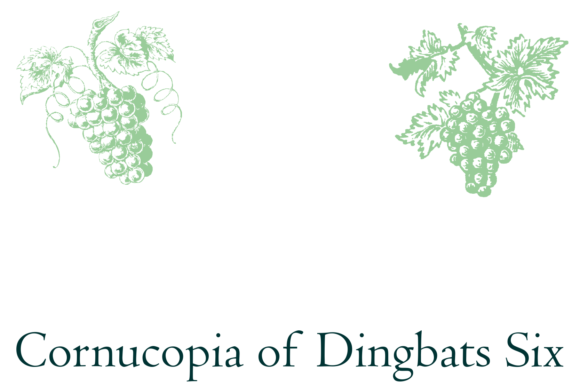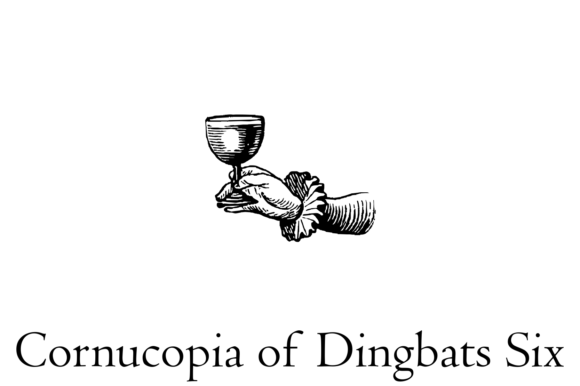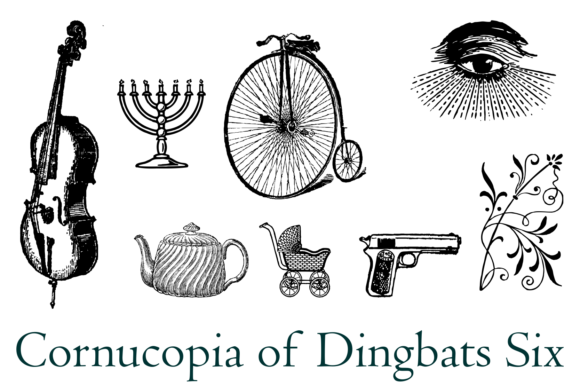
About Cornucopia of Dingbats Six Font
The Cornucopia of Dingbats Six is a captivating collection that combines classical vintage dingbats and ornaments, offering a wealth of creative possibilities. With its carefully curated selection of symbols, this collection allows you to infuse your designs with a timeless charm and elegance reminiscent of the past.
If you are a fan of vintage aesthetics or if you want to add a touch of classical elegance to your projects, the Cornucopia of Dingbats Six is a treasure trove of inspiration. Each dingbat and ornament within the collection has been meticulously crafted to reflect the artistic styles and motifs that were popular in bygone eras.
These classical vintage dingbats and ornaments can be seamlessly integrated into a wide range of design projects. Whether you’re working on invitations, stationery, book covers, or even branding materials, these symbols will add a touch of sophistication and visual appeal to your work.
Imagine using these dingbats to embellish typography, create borders or frames, or even as standalone decorative elements in your designs. The Cornucopia of Dingbats Six offers a diverse array of motifs, such as filigree patterns, intricate flourishes, vintage emblems, and ornate frames, allowing you to bring a sense of richness and historical significance to your creations.
The versatility of this collection extends beyond its use in digital designs. These dingbats and ornaments can also be utilized in traditional crafts, such as scrapbooking, card-making, or even embroidery. Whether you’re incorporating them into a digital collage or using them as templates for handcrafted projects, the Cornucopia of Dingbats Six provides a plethora of options for expressing your creativity.
Furthermore, these classical vintage dingbats and ornaments evoke a sense of nostalgia and add a unique character to your designs. They enable you to transport your audience to a bygone era, capturing their attention and evoking a feeling of timelessness and refinement.
In summary, the Cornucopia of Dingbats Six is a captivating collection that blends classical vintage dingbats and ornaments. With its timeless charm and elegant motifs, this collection offers a diverse range of symbols that can elevate your designs. Whether you’re aiming for a vintage-inspired look or simply want to add a touch of classical elegance, the Cornucopia of Dingbats Six provides a wealth of options to enhance your creative projects and leave a lasting impression on your audience.